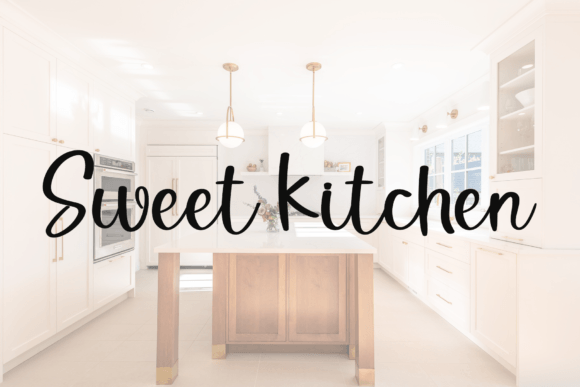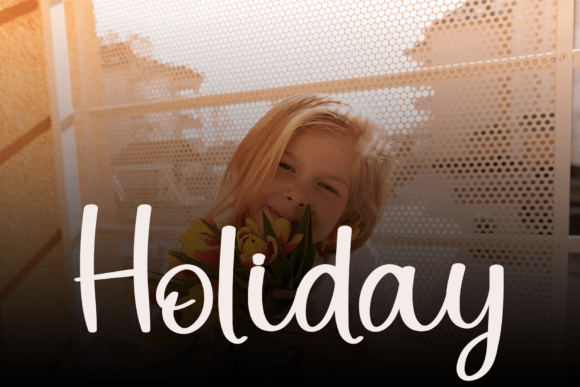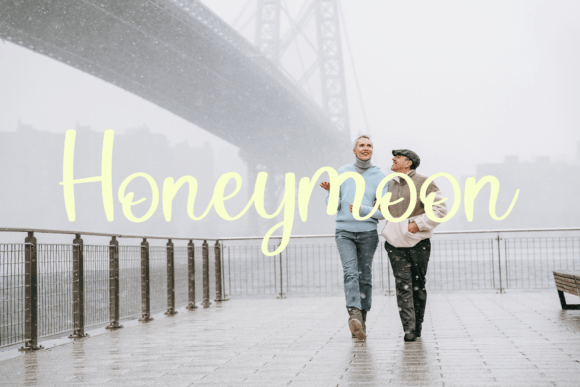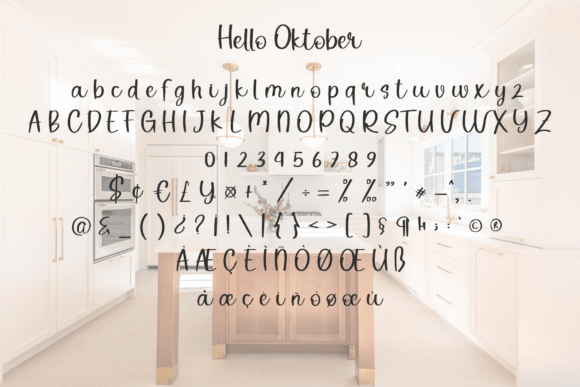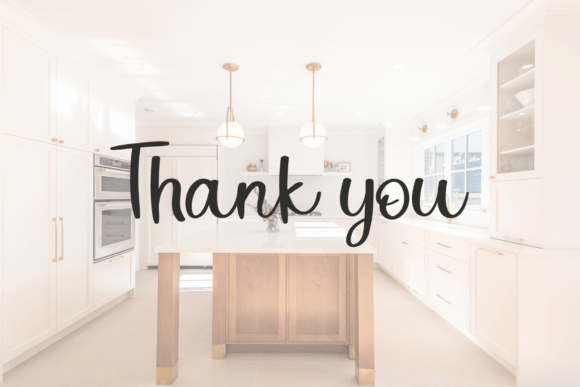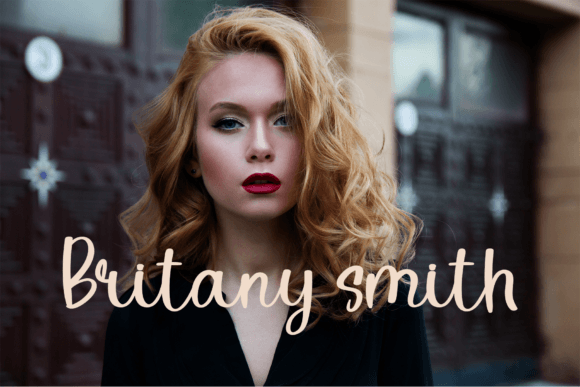
Hello Oktober Font
About Hello Oktober Font
“Hello Oktober” is a straightforward handwritten font that brings a touch of simplicity and naturalness to your design projects. This versatile typeface offers a wide range of applications, making it suitable for everything from charming greeting cards to eye-catching headlines. With “Hello Oktober,” you’re guaranteed to infuse your next project with a refreshing and unpretentious vibe.
“Hello Oktober” is more than just a font; it’s a design tool that effortlessly captures the essence of simplicity and authenticity. Its unadorned characters and natural appearance make it an ideal choice for a variety of creative endeavors, ensuring that your designs communicate a sense of approachability and warmth.
One of the defining characteristics of “Hello Oktober” is its adaptability. Whether you’re creating a friendly greeting card for a special occasion, designing an engaging headline for a blog post, or adding a touch of personality to a branding project, this font seamlessly integrates into diverse design contexts, enhancing each project with its straightforward and inviting style.
This font’s appeal extends effortlessly from traditional print media to the digital landscape. From the pages of a rustic-themed cookbook to the screens of a cozy lifestyle blog, “Hello Oktober” brings a sense of simplicity and naturalness to every setting. Its legibility ensures that your message is conveyed clearly and effectively, while its inherent simplicity adds a touch of visual charm.
What sets “Hello Oktober” apart is its ability to evoke a sense of approachability and down-to-earth authenticity. It’s a font that invites your audience to engage with your designs on a personal level. With “Hello Oktober” as part of your creative arsenal, you can convey your message in a way that resonates with simplicity-loving audiences.
Moreover, “Hello Oktober” offers a range of customization options, allowing you to tailor your text to perfectly match your creative vision. This flexibility empowers you to create designs that are as unique as your artistic imagination.
In conclusion, “Hello Oktober” is not just a font; it’s a design asset that infuses your creative projects with simplicity and a natural touch. Embrace its straightforward handwritten style, and let it inspire you to craft approachable and heartfelt designs that leave a lasting impression. With “Hello Oktober” by your side, your creative possibilities are boundless, enabling you to create works of art that are as simple and inviting as they are versatile and engaging.